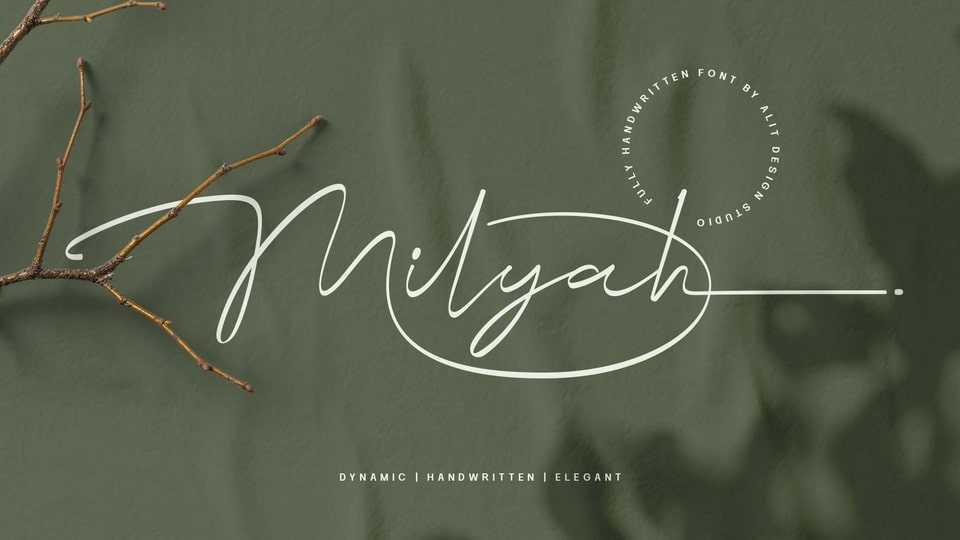
Download Milyah font, a signature script typeface inspired by spontaneous and dynamic signature strokes with an ink texture. Milyah font looks real, unique and charming which makes designs look more prominent and cool.